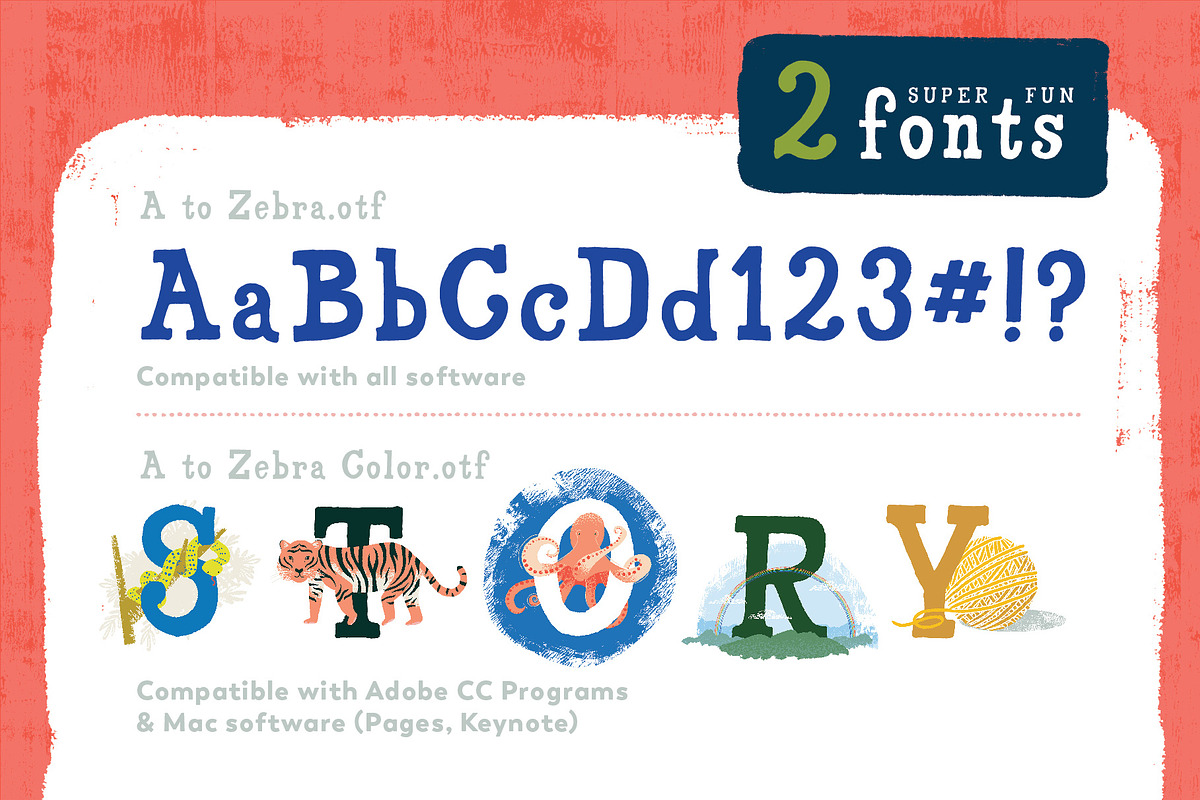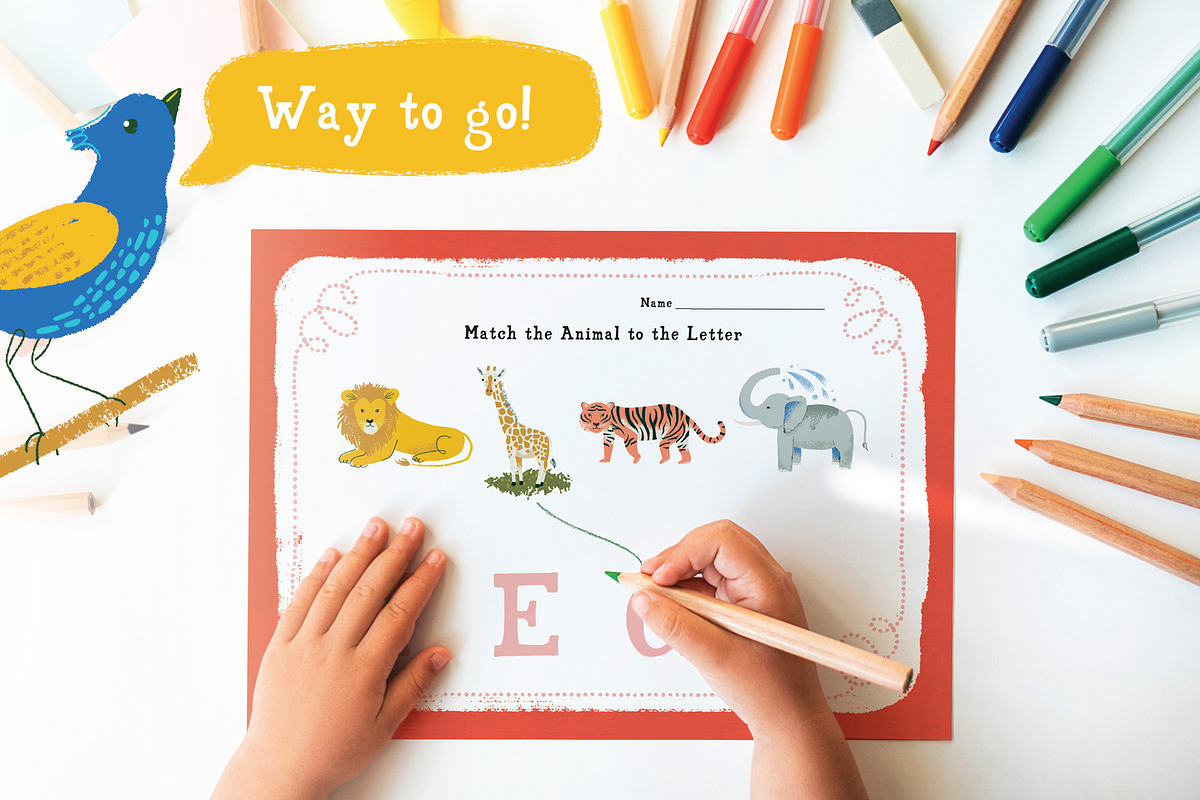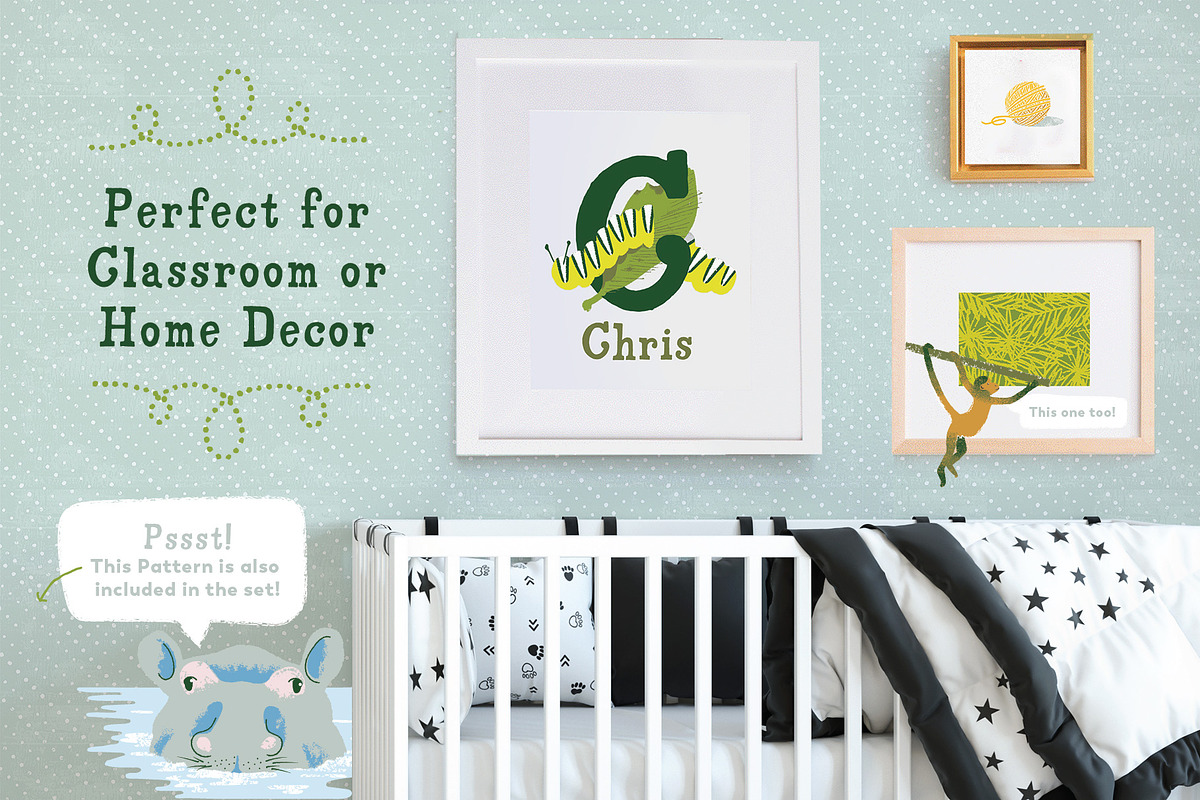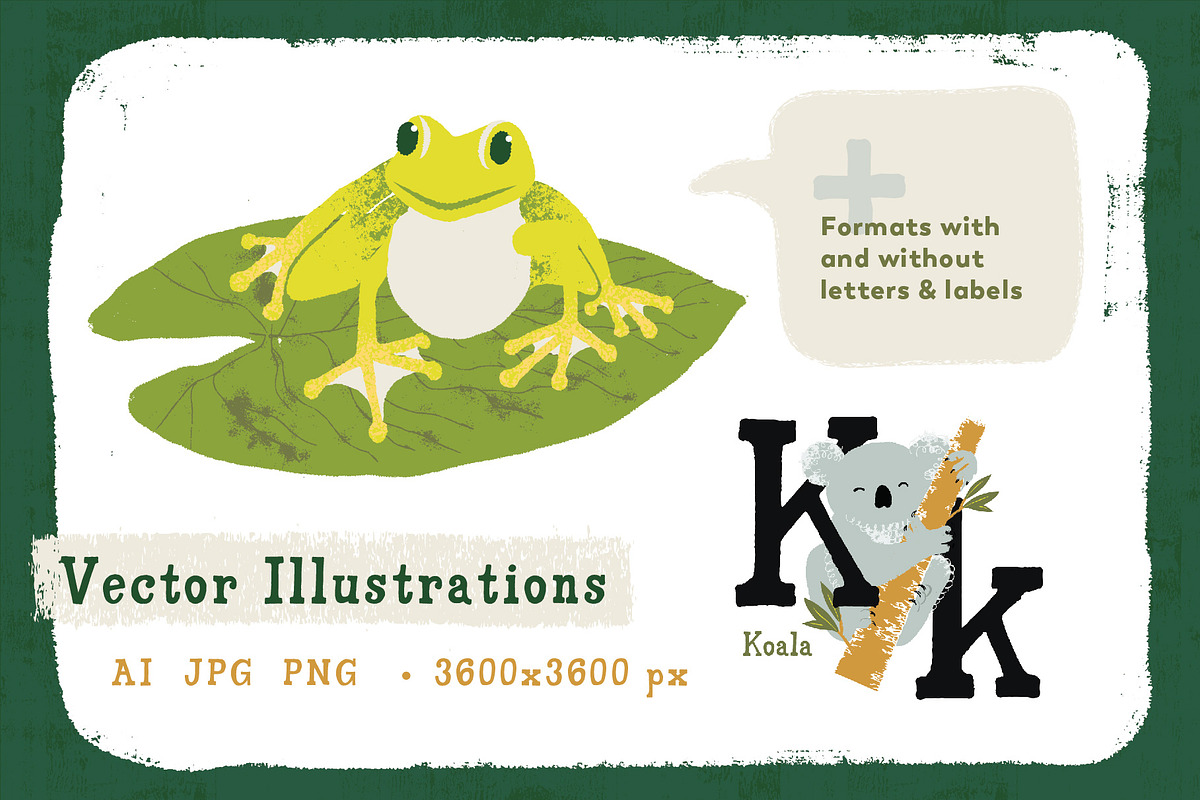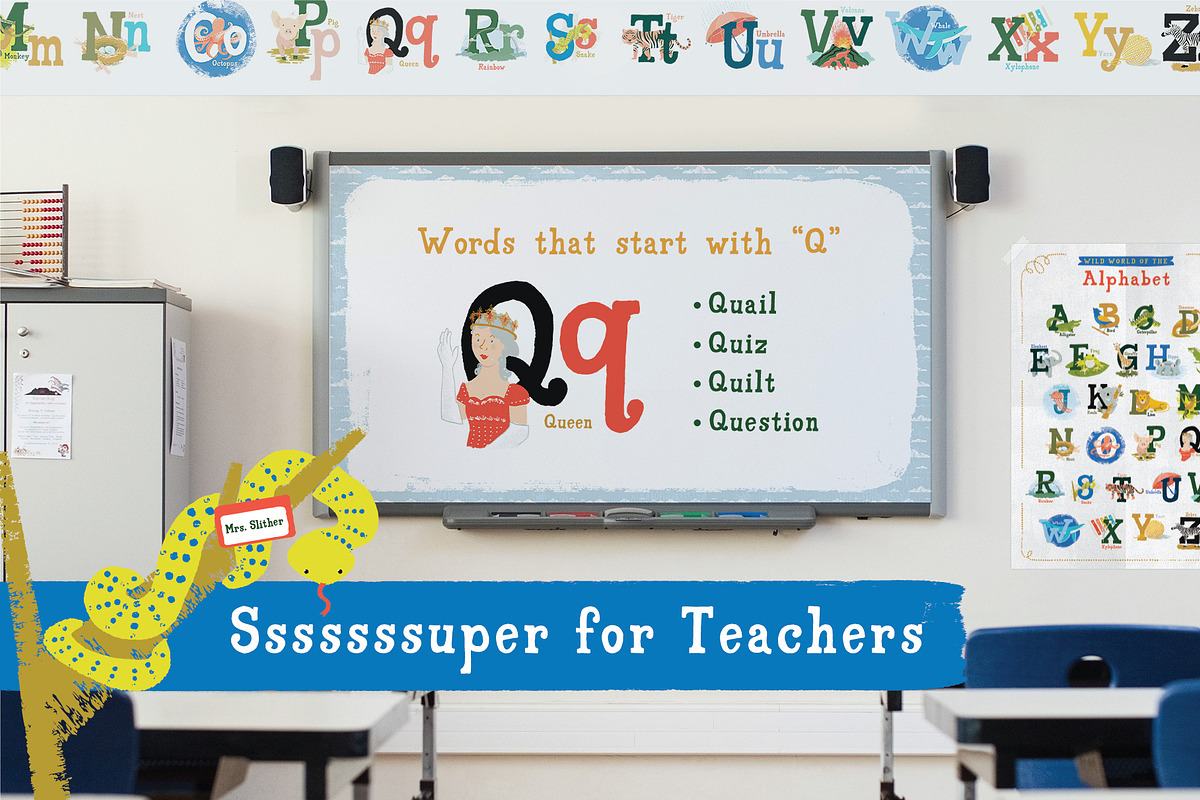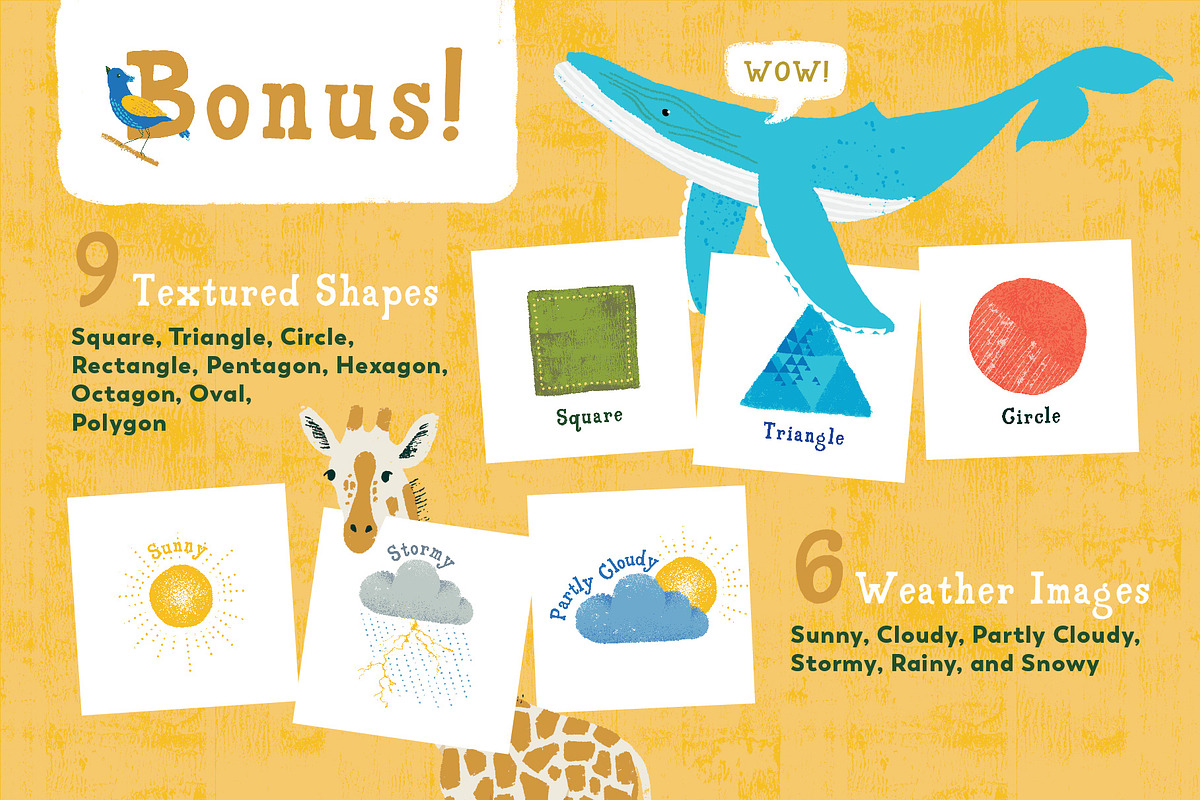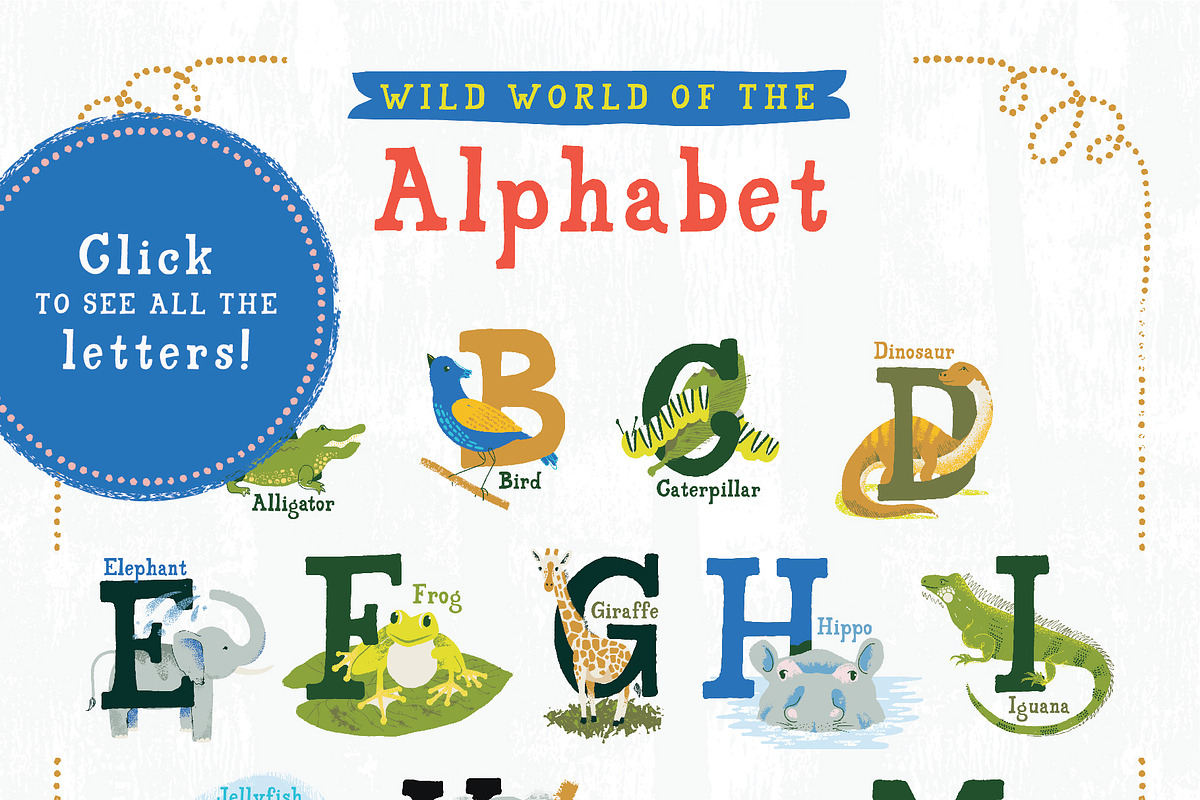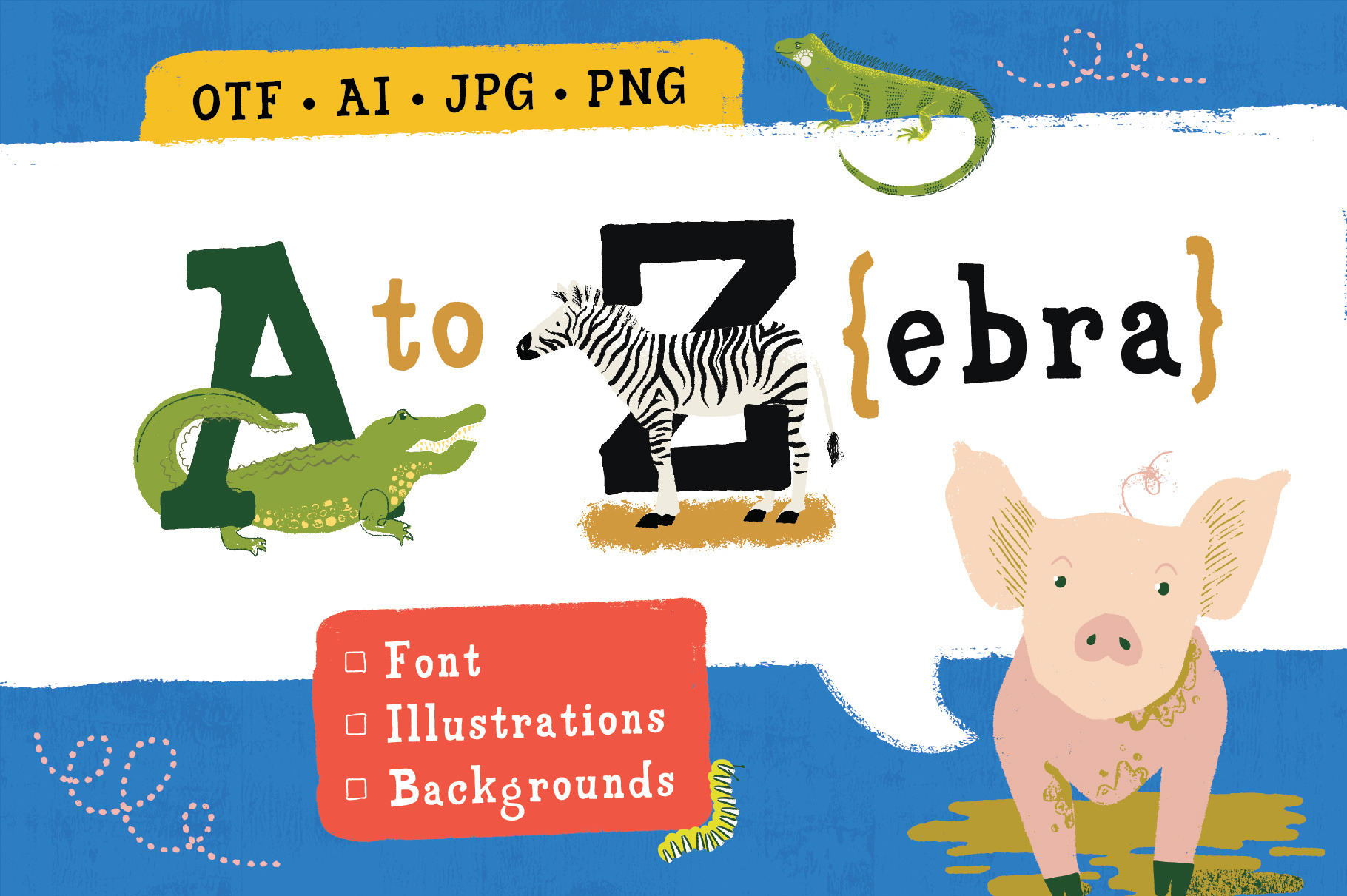
A to Zebra Font + Graphics
Ready to make the alphabet loads of fun? These cute fonts, illustrations, and graphics are perfect for classroom decor, kids' room decor, for elementary teachers creating worksheets, presentations, and other graphics. They would even be perfect for kids' toys or product design, or branding for a company oriented towards kids.
The centerpiece of this collection is 26 illustrations, one for each letter of the alphabet, most of which depict different animals (with some exceptions, like Q for Queen, V for Volcano, etc). The style is hand-drawn and fun, with textured edges, bright colors and lots of little patterned details to give them character.
There are two fonts included in this set: one standard font that would be compatible with any software (without the animal illustrations), and one raster color OTF font, which includes the animal illustrations on the capital letters. InDesign CC 2019+, Illustrator CC 2018+ and Photoshop CC 2017+ are Adobe’s only apps that officially support & display color fonts. It is also compatible with some MacOS apps like Pages and Keynote. Please make sure you have the correct compatible software if you plan on using the color font! Even if you cannot use the color fonts, JPG, PNG, and AI files are included of each animal with their letter.
Also included in this set are some bonus illustrations of different shapes and weather icons, as well as 7 different paper/background designs. These are supplied with and without a white space in the middle for content, and given as Letter, A4, Powerpoint slide, and square sizes, to make them easy to use for worksheets, presentations, and more.